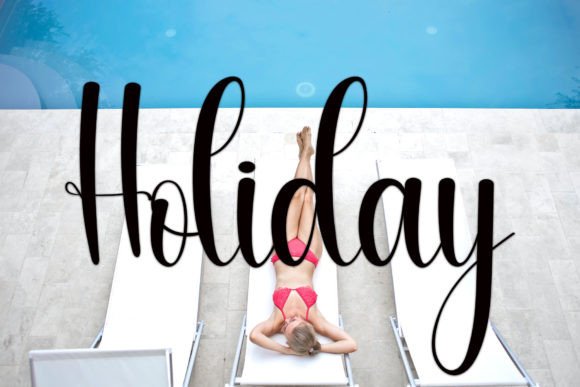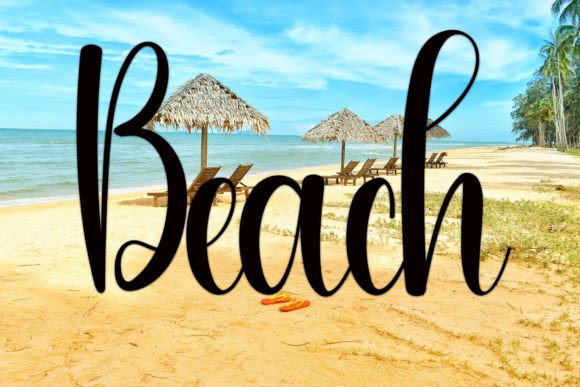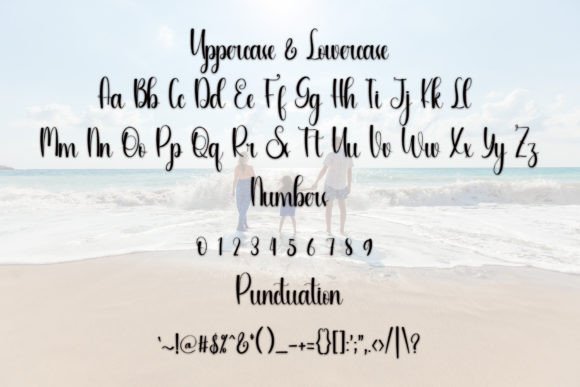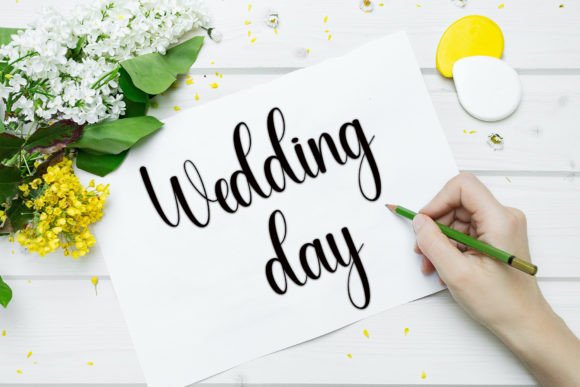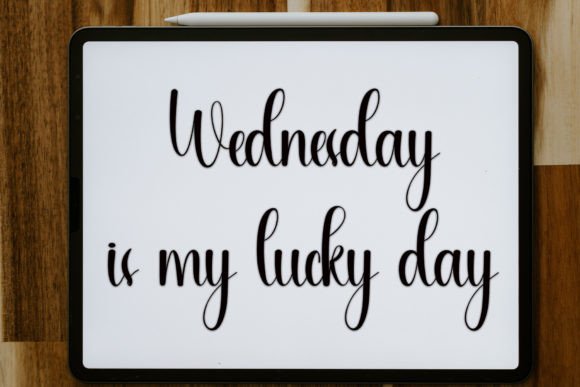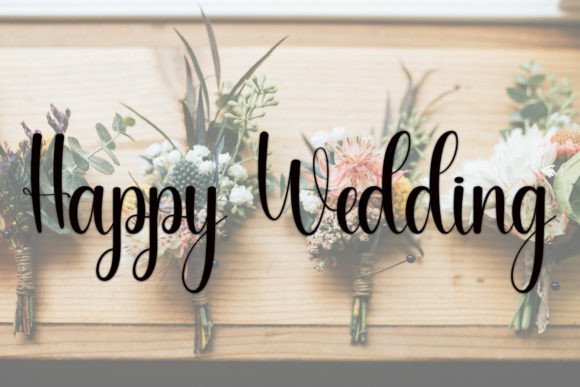
Discover the Charm of Charlotte Font: Elevate Your Designs with a Cool, Simple, and Playful Handwritten Style
Are you on the hunt for a font that can instantly elevate your designs and bring a touch of personality to your creative projects? Look no further than the Charlotte font, a cool, simple, and playful handwritten font that’s incredibly versatile and perfect for a wide range of designs. In this article, we’ll dive into the world of Charlotte font, exploring its features, benefits, and uses, and show you how this amazing font can make your designs come alive!
What is Charlotte Font?
Charlotte is a beautiful, handwritten font that’s been carefully crafted to bring a sense of fun and playfulness to your designs. With its simple and clean lines, this font is perfect for designers and crafters who want to add a personal touch to their work. Whether you’re creating a logo, a poster, a social media graphic, or a website, Charlotte font is an excellent choice.
Key Features of Charlotte Font
- Cool and Playful: Charlotte font has a unique and charming personality that’s sure to capture the attention of your audience. Its playful vibe makes it perfect for designs that require a touch of whimsy and fun.
- Simple and Clean: The clean lines and simple design of Charlotte font make it incredibly versatile and easy to read. This font is perfect for designs that require a clear and concise message.
- Handwritten Style: The handwritten style of Charlotte font adds a personal touch to your designs, making them more relatable and engaging.
- Incredibly Versatile: Charlotte font can be used in a wide range of designs, from logos and posters to social media graphics and websites.
Benefits of Using Charlotte Font
So, why should you choose Charlotte font for your next design project? Here are just a few benefits of using this amazing font:
- Easily Readable: Charlotte font is incredibly easy to read, making it perfect for designs that require a clear and concise message.
- Unique and Memorable: The unique and playful personality of Charlotte font makes it sure to leave a lasting impression on your audience.
- Time-Saving: With Charlotte font, you can create stunning designs in no time. Its simple and clean lines make it easy to use and customize.
- Perfect for Branding: Charlotte font is perfect for branding projects, as it adds a personal touch and helps to create a unique identity for your business.
How to Use Charlotte Font in Your Designs
Now that we’ve explored the features and benefits of Charlotte font, let’s take a look at how you can use it in your designs. Here are a few ideas to get you started:
- Logos: Use Charlotte font to create a unique and memorable logo for your business.
- Posters: Add a touch of personality to your posters with Charlotte font.
- Social Media Graphics: Use Charlotte font to create eye-catching social media graphics that are sure to capture the attention of your audience.
- Websites: Add a personal touch to your website with Charlotte font, perfect for headings, titles, and more.
Tips and Tricks for Getting the Most Out of Charlotte Font
Here are a few tips and tricks to help you get the most out of Charlotte font:
- Experiment with Colors: Try pairing Charlotte font with different colors to create a unique and eye-catching design.
- Play with Sizes: Experiment with different font sizes to create visual interest and hierarchy in your design.
- Add Texture: Add texture to your design by pairing Charlotte font with different textures and patterns.
In conclusion, Charlotte font is a cool, simple, and playful handwritten font that’s perfect for designers and crafters who want to add a personal touch to their work. With its unique and charming personality, this font is sure to elevate your designs and bring a touch of whimsy and fun to your creative projects. Whether you’re creating a logo, a poster, a social media graphic, or a website, Charlotte font is an excellent choice. So why wait? Add Charlotte font to your favorite creative ideas and notice how it makes them come alive!